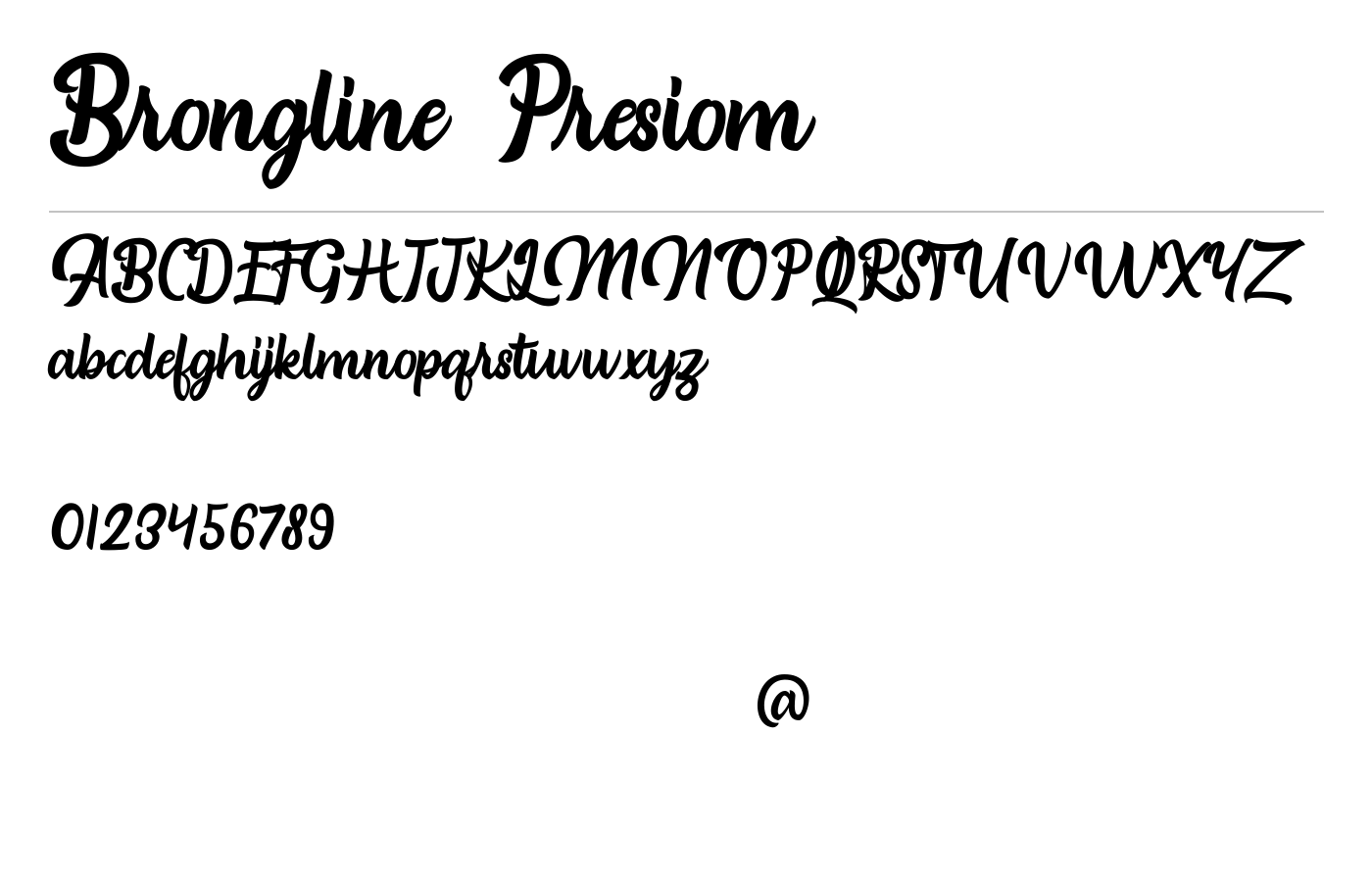
Brongline Presiom is a bold, script-style font with smooth, flowing curves and a playful yet elegant feel. It features high contrast strokes with soft, rounded edges and distinctive letterforms that combine both uppercase and lowercase styles harmoniously, making it ideal for creative branding, invitations, and eye-catching headlines. Its lively personality and readable design lend well to projects that need a touch of warmth and sophistication.
Brongline Presiom Font